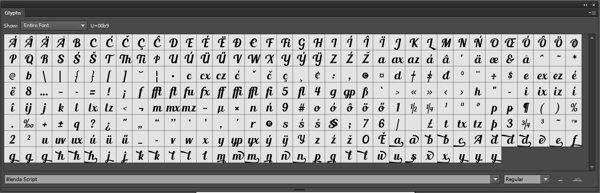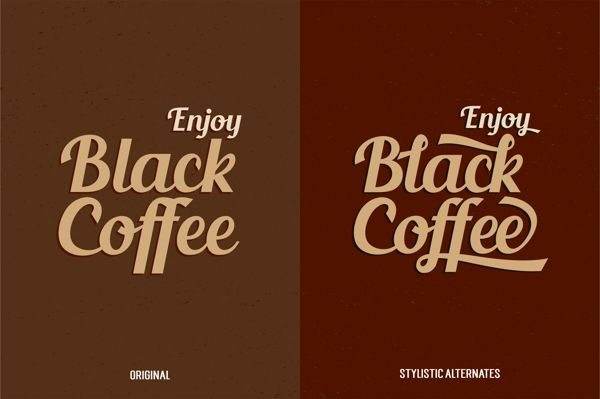
Fonts Free Font Of The Day #4 – Blenda Script Font by Rizki Akmanda January 29, 2014 Blenda Script Font from Seniors Studio is a free experimental font inspired by lobster font, a bold vintage script. can be used for various purposes. View Source Download Rizki Akmanda Founder of Themes Awesome. I love my job as web developer. Proud husband of Camira and father of Faizhia & Luffy